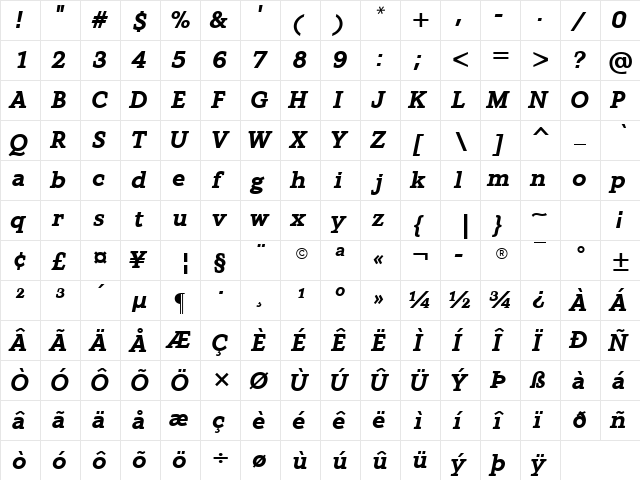
Graphos Bold Italic
Design Context for Graphos Typeface
Graphos takes a measured approach to typography — its balanced proportions and neutral character make it a reliable workhorse for both digital and print work. The slanted form adds forward momentum and visual energy. The heavy weight commands attention and anchors typographic hierarchies.
Pro Tip: Use Graphos for emphasis, pull quotes, and subheadings where its slanted energy can add rhythm to the layout.